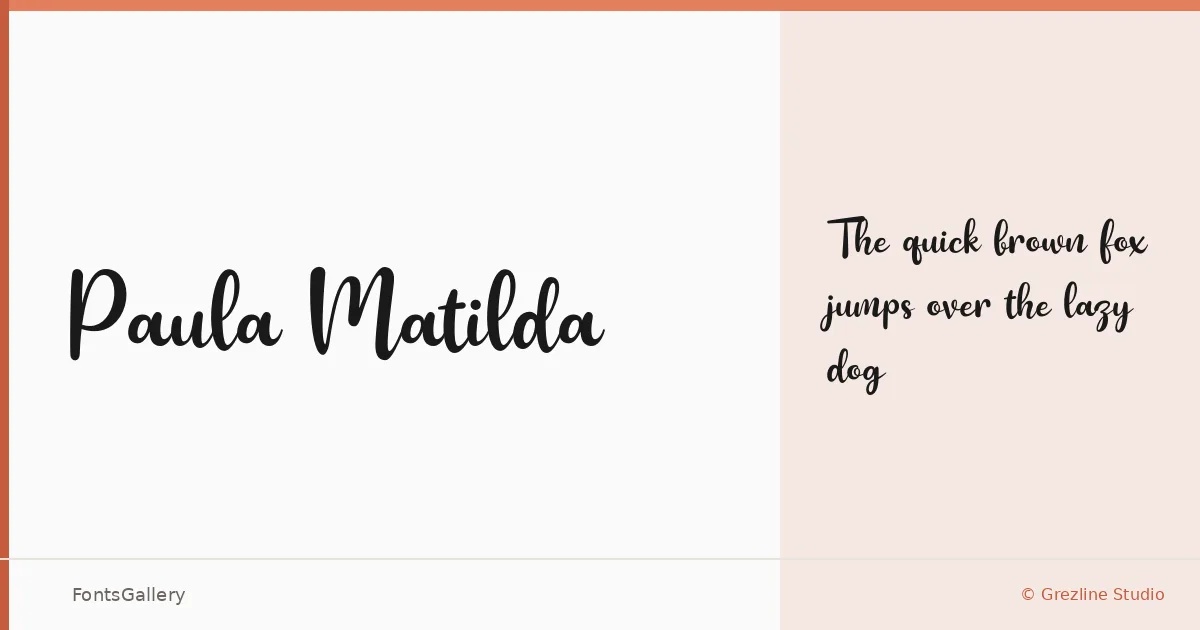
About Paula Matilda Font
There is a looseness to this script that feels genuinely handwritten — the kind of lettering you might find on a carefully addressed envelope or a well-considered wedding suite. Paula Matilda is the work of Akhmad Reza Fauzi of Grezline Studio, released as a single Regular cut in OTF format. The letterforms carry that particular mix of elegance and warmth that makes a script feel personal rather than decorative.
The mood sits at the intersection of romantic and playful — swashes that feel confident without tipping into excess, a baseline rhythm that stays lively without becoming erratic. As a Latin-covering script with one weight to its name, it asks you to let the letterforms do the expressive work without leaning on contrast between styles. That single cut, properly set, has real presence in display sizes.
The natural home for this script is anywhere emotion is part of the brief: wedding invitations, greeting cards, branding with a personal touch, or social media visuals that need a handcrafted feel. It pairs well with the measured calm of Helvetica or Canela, and holds its own alongside ABC Arizona, Anglecia Pro, or (AH) Manal — all of which offer the tonal contrast a script like this benefits from in a layout.